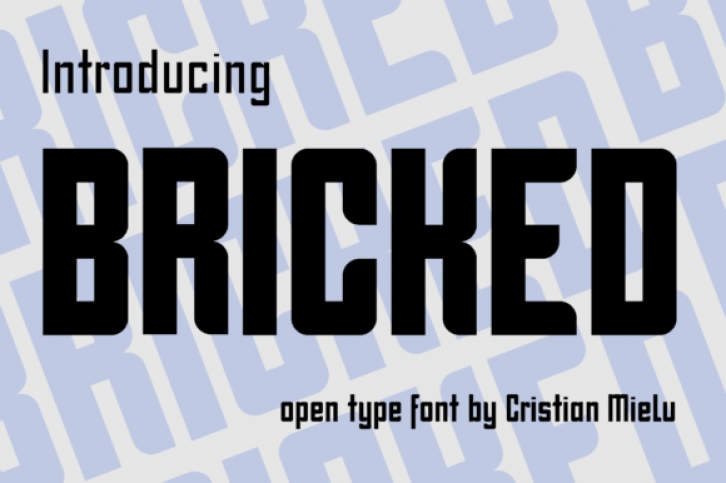
Bricked is a bold display font. Clean and a little bit quirky, this font is the perfect fit for all of your logos, branding, social media, and crafty DIY projects.